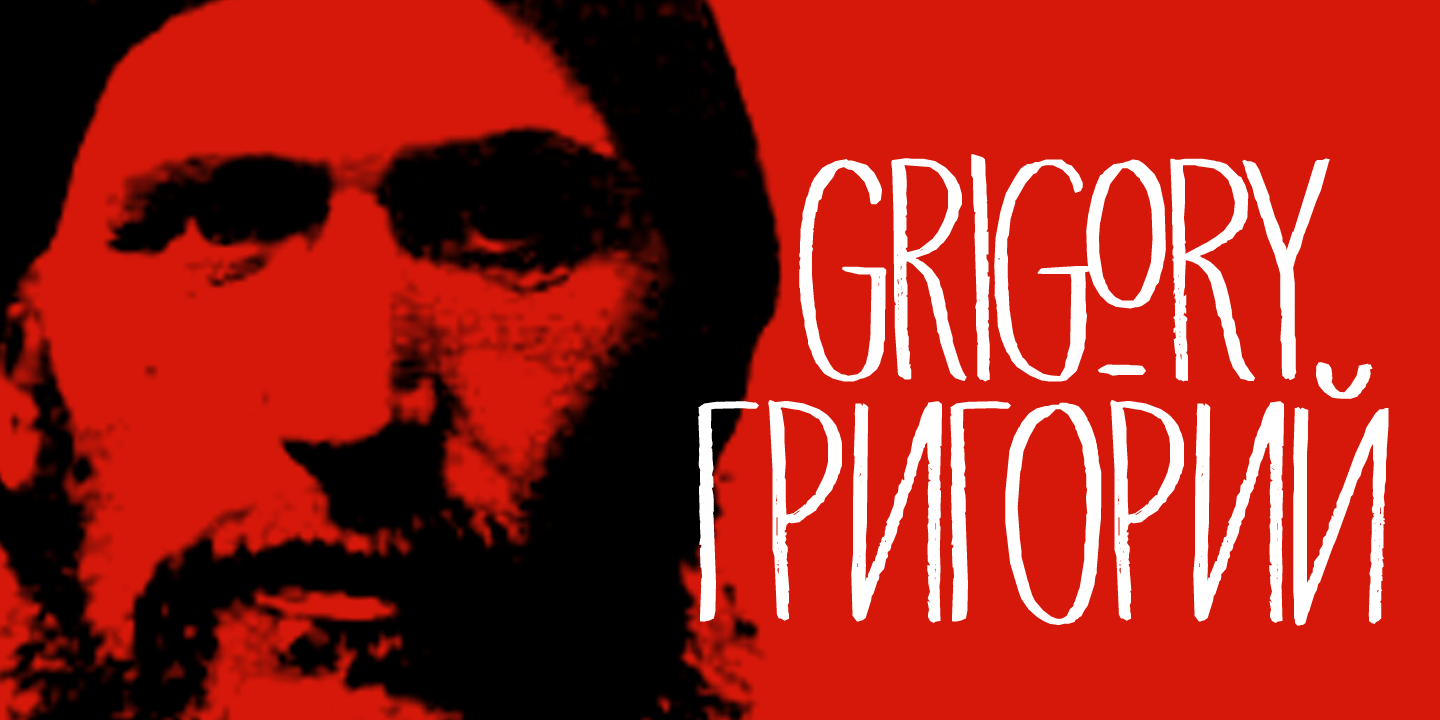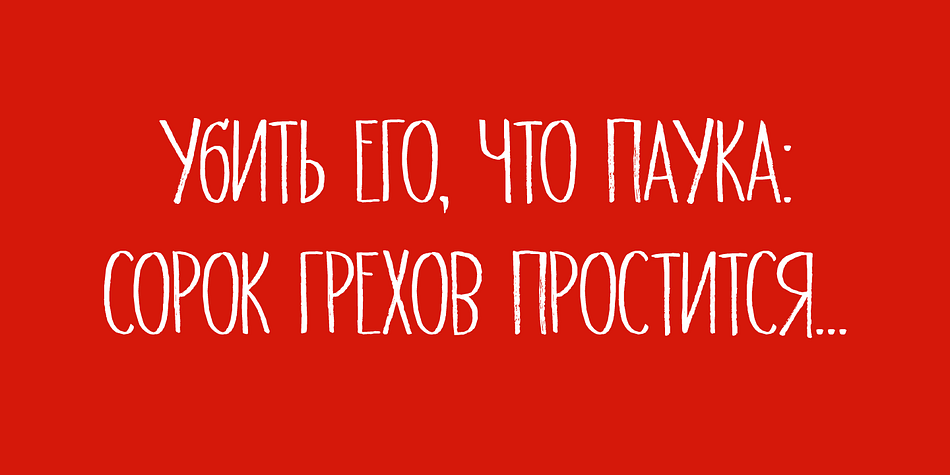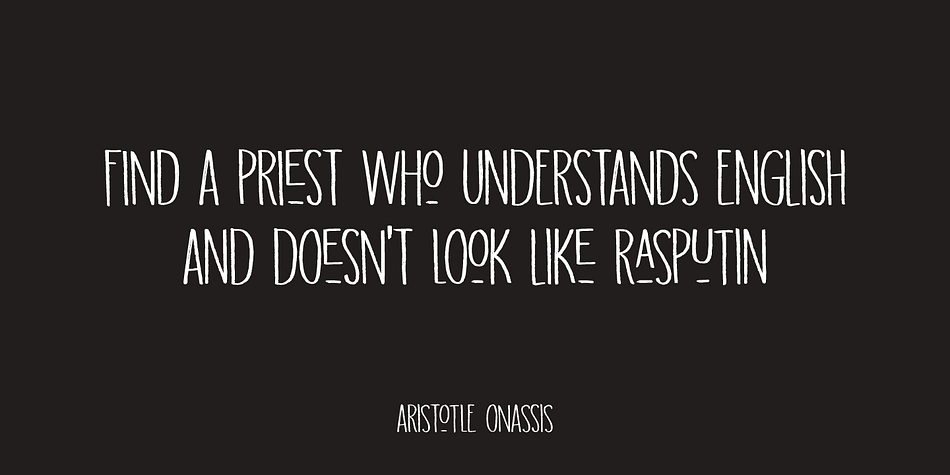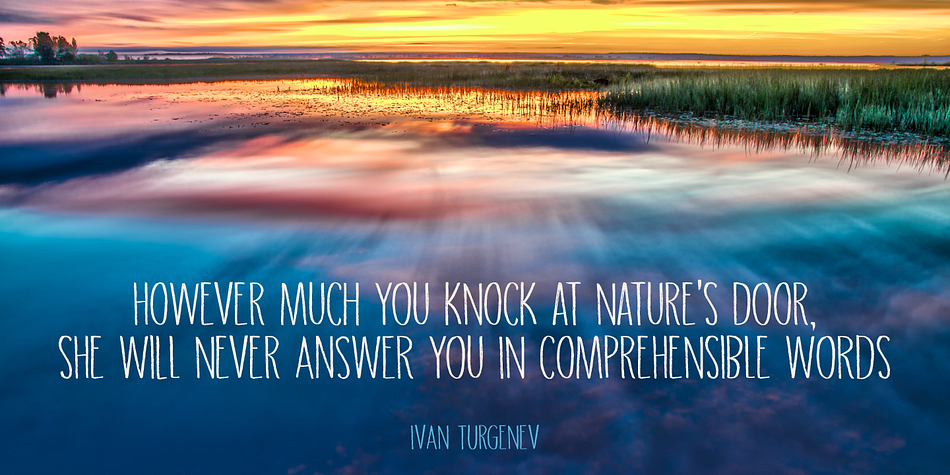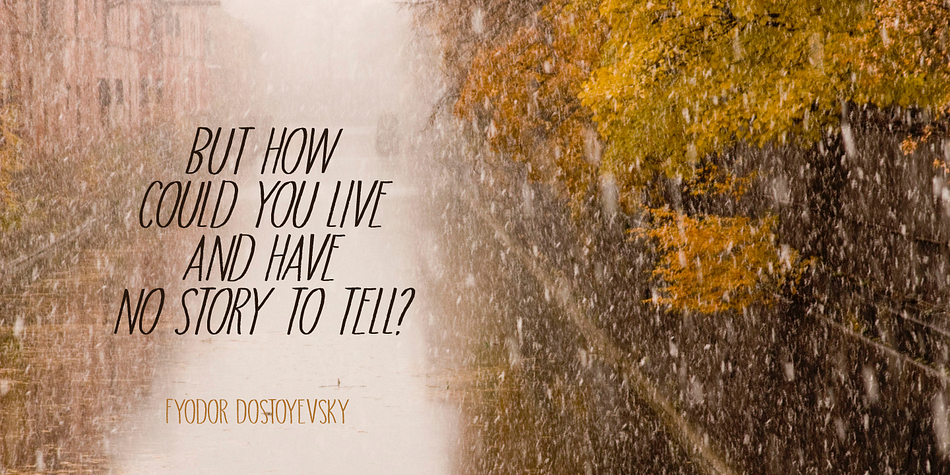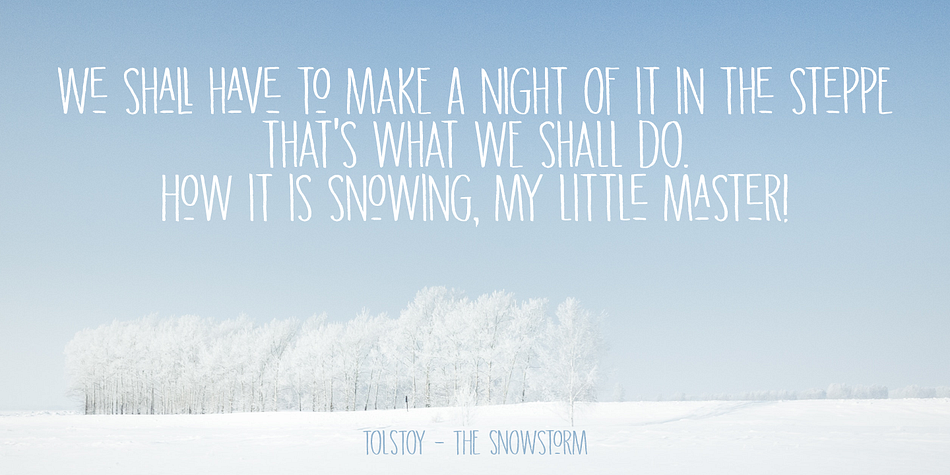
Designed by David Kerkhoff, Grigory is a hand display font family. This typeface has two styles and was published by Hanoded.
I have always been fascinated by Grigory Rasputin, the rogue ‘monk’ who influenced the Russian Tsar Nicholas and - according to rumours - bedded the Tsarina.
Grigory font was handmade with the use of a Chinese marker pen and rough paper. Grigory comes with all the trimmings; some alternate glyphs, a few double letter ligatures, a great amount of diacritics and basic Cyrillic as well.